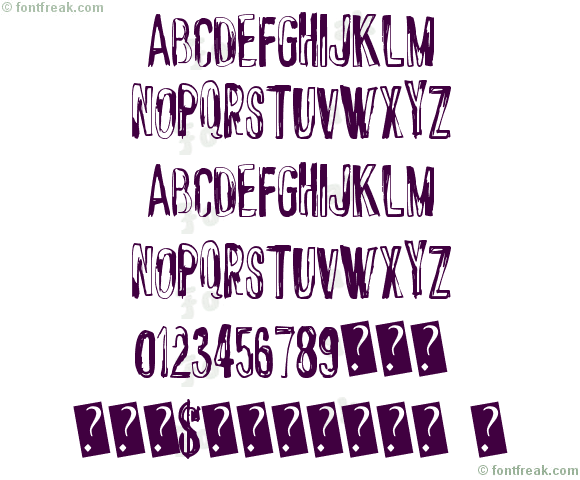
ChromeFancy
About ChromeFancy
The ChromeFancy font by Xerographer Fonts is a captivating decorative typeface that stands out with its unique visual flair. Designed in 2012, this font features an eclectic blend of playful and bold elements, making it perfect for a variety of design projects. The stroke weight is dynamic, showcasing varying thicknesses that create a sense of movement and energy. With its high contrast and irregular spacing, ChromeFancy captures attention and adds a whimsical touch to any text.
This font is particularly well-suited for creative applications such as movie posters, where its striking design can evoke excitement and intrigue. Additionally, it works wonderfully for restaurant menus, adding a fun and engaging aesthetic that reflects a vibrant dining experience. Wedding invitations can also benefit from ChromeFancy's unique charm, as it adds a personalized and festive touch to the special occasion. Content creators and graphic designers will find this font invaluable for social media graphics, promotional materials, and branding projects, where a distinctive visual identity is crucial.
The target audience for ChromeFancy includes graphic designers, small business owners, and content creators looking for a font that makes a statement. Its playful style can draw in customers and effectively communicate a brand's personality.
What sets the ChromeFancy font apart is its ability to combine fun and functionality. It can infuse any design with a sense of joy while maintaining readability. The ChromeFancy font free download allows designers to explore its potential without any cost, making it an accessible choice for anyone looking to enhance their projects with a touch of creativity and flair. Whether for professional or personal use, this font is sure to leave a lasting impression.